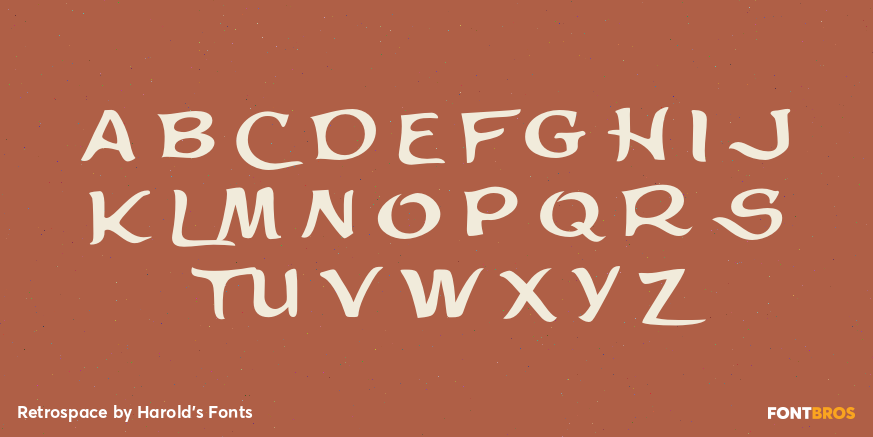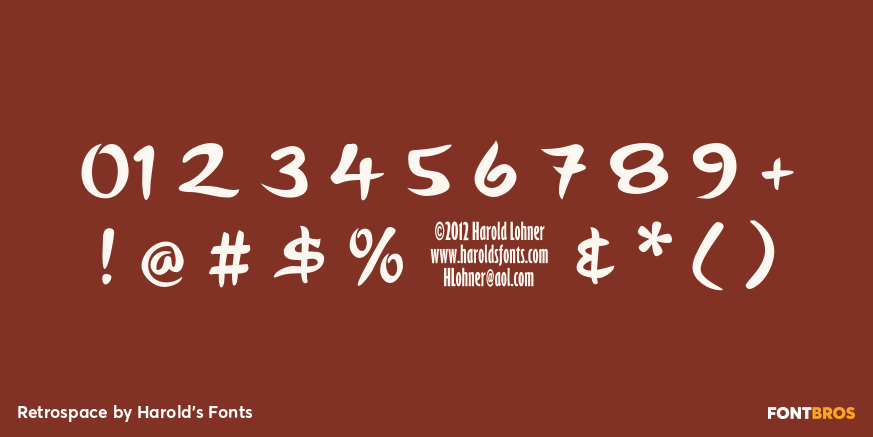
Retrospace
Font Family by Harold's Fonts
RETROSPACE harkens back to that wonderful late 50s/early 60s style known as Googie or Populuxe. Think tail fins and mid-century modern, when the future seemed clean, friendly and cheerful. Inspired by the hand-lettered titles of a 1958 film, "Some Came Running."